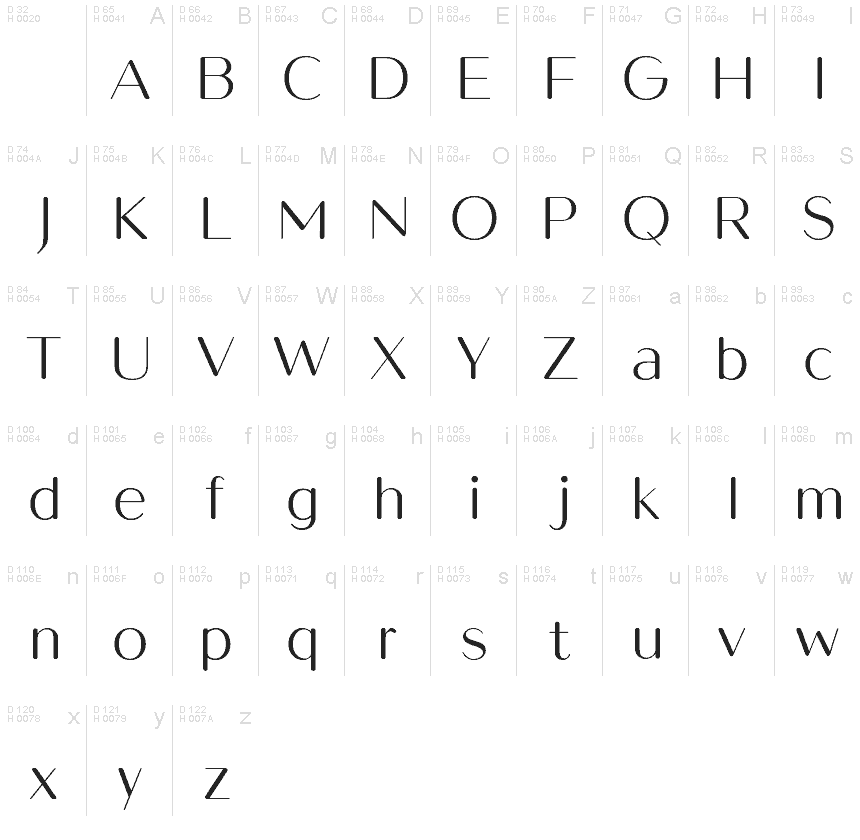
Mikea Rounded Demo Regular
Mikea Rounded font by Craft Supply Co is a sophisticated sans serif creation with elegantly refined curves and well-balanced proportions. The font is modern yet contemporary, featuring an overall elegant and polished aesthetic look.